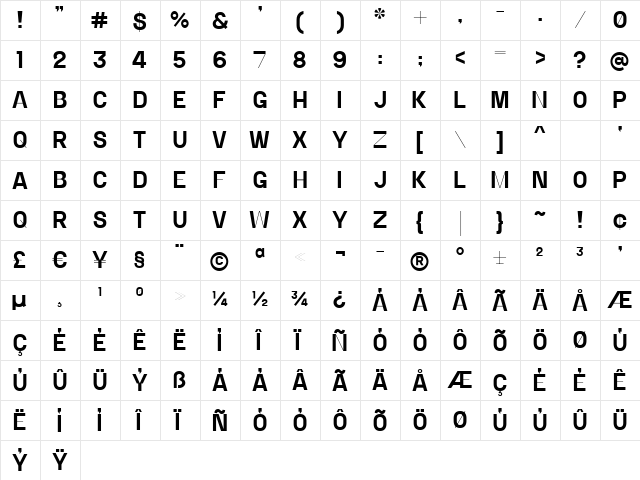
Alterner Regular
Design Context for Alterner Typeface
Alterner is a composed and adaptable typeface that performs quietly and consistently across a wide range of design contexts.
Pro Tip: Pair Alterner with a font of contrasting weight or personality to build a more expressive typographic hierarchy.